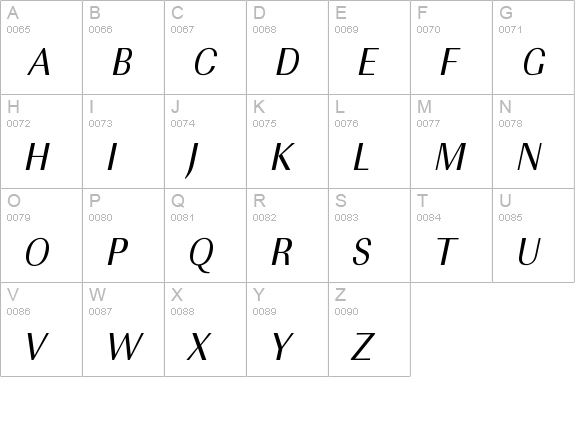
URWImperialTOTExtNar Oblique Font Details
URWImperialTOTExtNar Oblique is a distinctive, italic variant in the URWImperialTOTExtNar typeface family \xE2\x80\x94 well suited to design and typography projects.
URWImperialTOTExtNar Oblique font is a modern and stylish typeface that exudes elegance and sophistication. With its sleek and slanted design, this font is perfect for adding a touch of flair to any project. Whether you're looking to create eye-catching headlines or stylish logos, URWImperialTOTExtNar Oblique font is sure to make a statement. The best part? This premium font is available for free download at FontsMarket.com. Don't miss out on the opportunity to elevate your designs with the sleek and stylish URWImperialTOTExtNar Oblique font. Download it today and add a touch of sophistication to your projects.